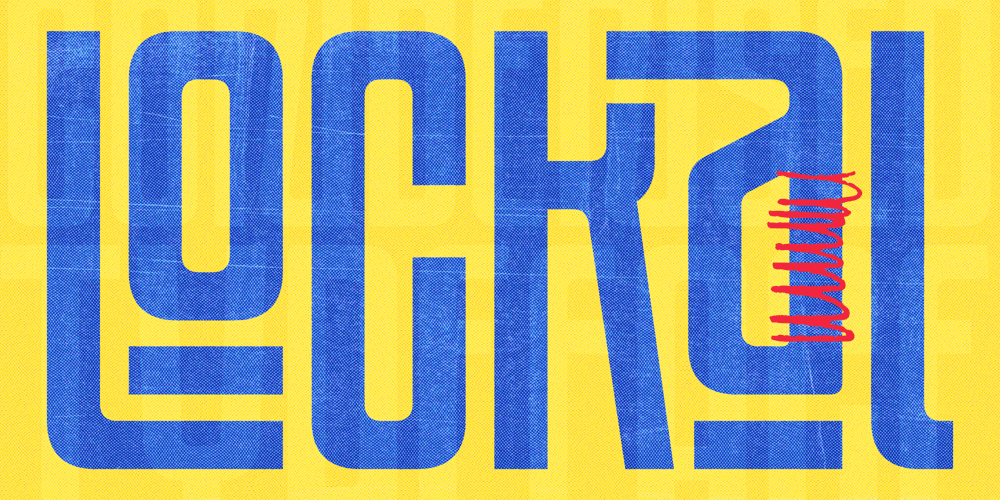
Lockal
Lockal font
Lockal Font Family was designed by Roland Hüse and published by Prominent and Affluent. Lockal contains 6 styles and family package options. Lockal – the ultimate font display that’s here to take your designs to the next level. With a solid structure and an impressive collection of ligatures, this bad boy is bound to make your creations pop.But wait, there’s more! Lockal comes in not one or two but THREE styles – Regular, Rounded, and Rough. And as if that wasn’t enough, each style also has an oblique mode for when you need that extra edge.So whether you’re working on a branding project or creating eye-catching posters, Lockal has got your back. Trust us; your clients will be blown away by the results.Don’t settle for ordinary fonts when you can have something extraordinary like Lockal. Get it now and watch your creativity soar!